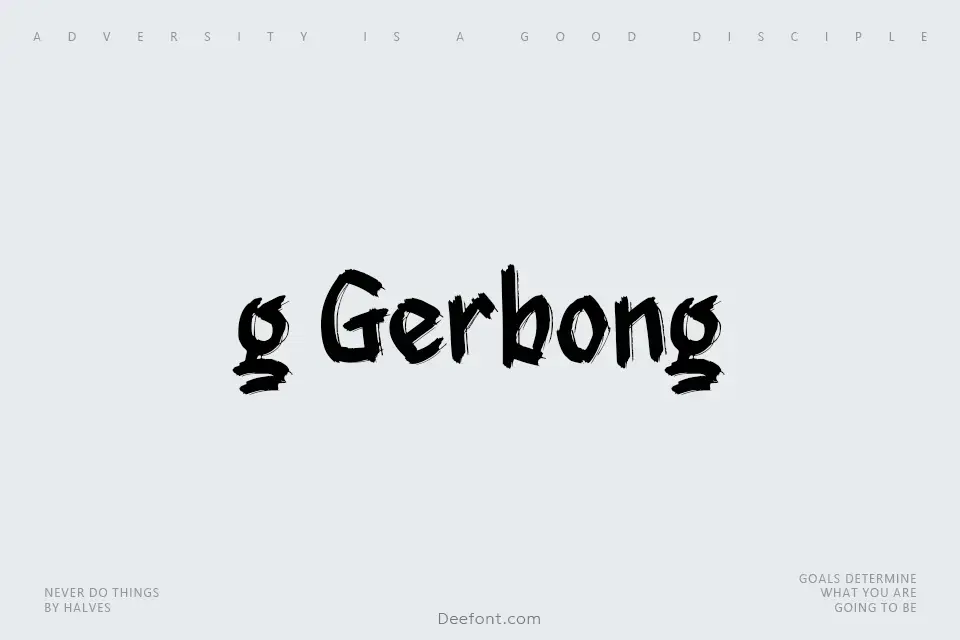
g Gerbong Font
g Gerbong is a script font that commands attention with its rough, textured strokes and a raw, edgy energy. This trash-inspired typeface has an unconventional, rebellious feel, making it perfect for designs that need to stand out. It excels in horror-themed posters, bold logos, band branding, and any project requiring an authentic, handwritten grunge aesthetic for impactful titles.